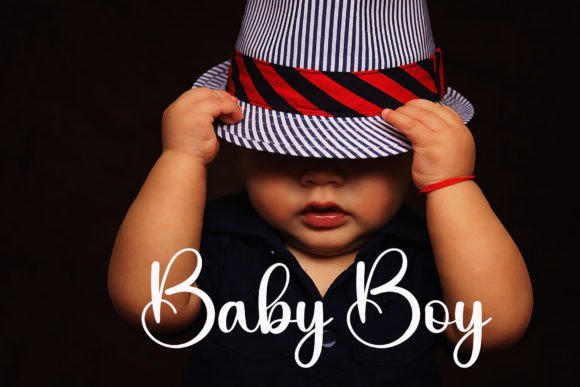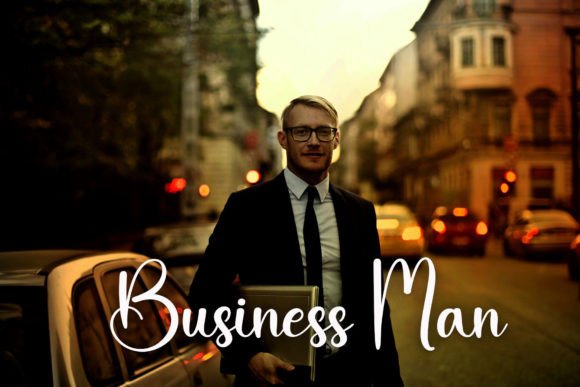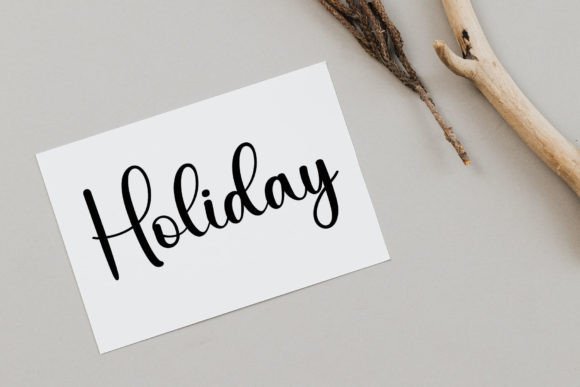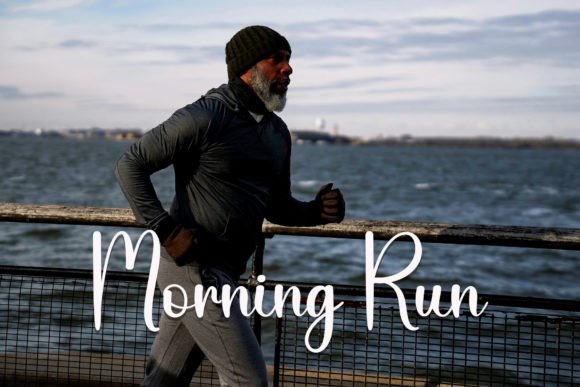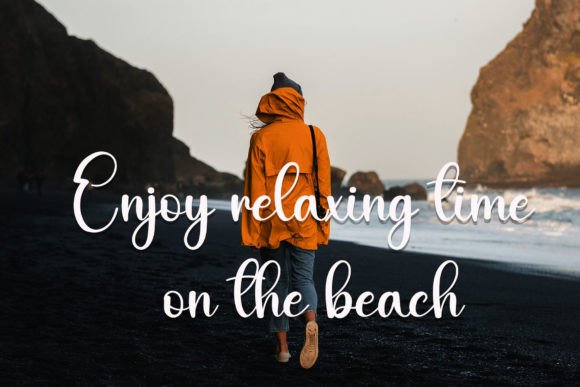
About Biscuits Font
“Biscuits” is a sweet and beautiful handwritten font that brings a touch of elegance to your designs. With characters that gracefully dance along the baseline, this font adds a luxurious spark to any design project you wish to create. The handwritten charm of “Biscuits” enhances its visual appeal, making it suitable for a variety of creative endeavors.
The sweetness of “Biscuits” is immediately apparent in its delicate and refined design. The characters flowing along the baseline give the font a sense of movement and grace, contributing to the overall aesthetic beauty. This quality makes “Biscuits” particularly fitting for projects that demand a touch of sophistication and luxury.
The handwritten nature of the font adds a personal and authentic touch to your text. Whether used in branding, invitations, or any design project, “Biscuits” brings a warmth and uniqueness that can elevate the overall impact of your creative work.
The luxury spark that “Biscuits” adds to your designs is especially valuable for projects where you want to convey a sense of refinement and exclusivity. Its versatility allows it to be applied in various contexts, from logos and branding materials to elegant invitations and beyond.
In summary, “Biscuits” is more than just a font; it’s a sweet and beautiful design tool that infuses a luxury spark into your projects. Its handwritten charm, combined with an elegant baseline dance, makes it a delightful choice for anyone seeking to add sophistication and visual allure to their creative endeavors.